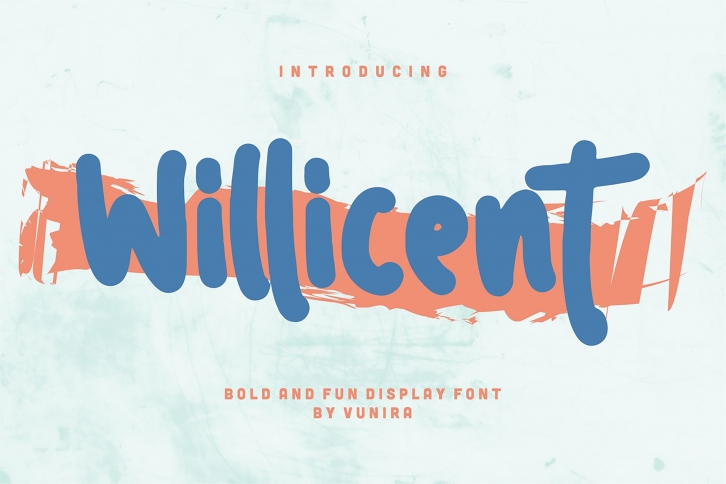
Willicent is a cute, bubbly and paint brushed display font. Add it confidently to your favorite creations and let yourself be amazed by the outcome generated.Â